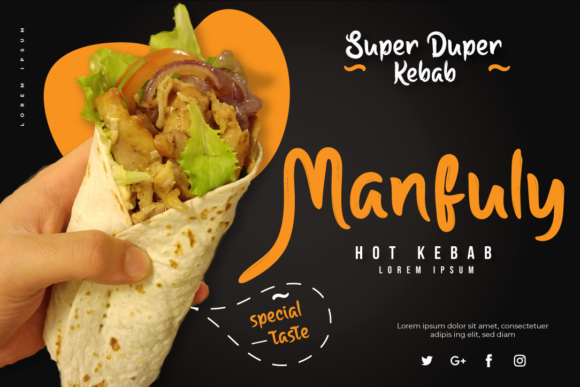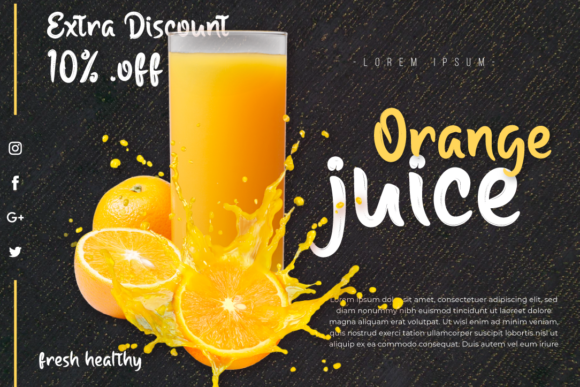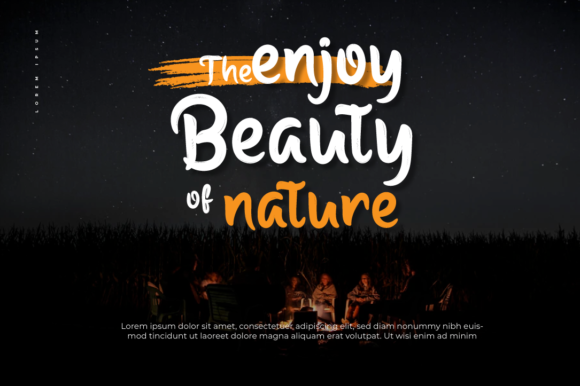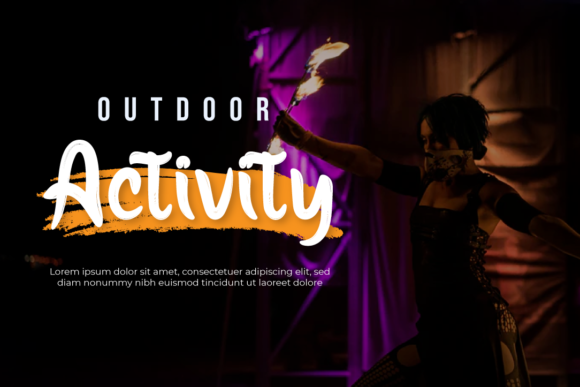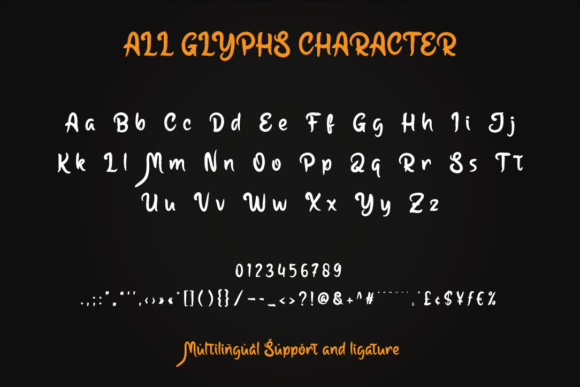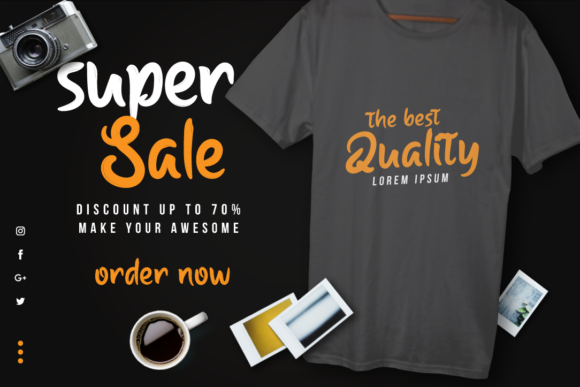
Introduction to Manful Font
Do you remember the moment when a particular font choice completely transformed your creative project? Maybe it was the perfect balance of elegance and playfulness that made your design stand out. For me, it was a handwritten font that gave my branding a unique and personal touch. And that’s exactly what the Manful Font offers – a brush handwritten font that can elevate your designs to the next level.
| 👤 Author | Productype |
As a designer, you’re always on the lookout for high-quality design resources that can help you create original and outstanding designs. The Manful Font is a valuable addition to your design arsenal, perfect for a wide variety of projects, from branding and advertising to posters and banners. And the best part? It’s available for a free download, so you can start experimenting with it right away.
With its transparent background and high-quality design, the Manful Font is a game-changer for any creative project. Whether you’re working on a packaging design, a podcast logo, or a quote, this font is sure to bring your ideas to life in a unique and captivating way.
Key Features of Manful Font
- High-quality design resource with a strong, masculine aesthetic suitable for creative projects.
- Features a transparent background, making it easy to layer over images and other design elements.
- Includes a range of weights and styles, from light to bold, allowing for versatile use in various design contexts.
- Designed with a focus on readability, ensuring that the font remains clear and legible even at small sizes.
Honest Review: Manful Font
I recently had the chance to try out the Manful Font, and I have to say it’s a unique addition to any design project. As a design resource, I appreciate its bold and modern feel, perfect for making a statement in a creative project. With its high-quality design and versatility, it’s a great choice for anyone looking to add a touch of sophistication to their work.
- ✨ Customizable and adaptable to various design needs
- ✨ Offers a wide range of font styles and weights
- ✨ Includes a transparent background option for added flexibility
One thing to note is that the font may not be suitable for all types of projects. For example, it may not be the best choice for projects requiring a more minimalist or subtle design approach.
- ⚠️ May not be suitable for minimalist or subtle design projects
Overall, I would recommend the Manful Font for designers looking to add a touch of boldness and sophistication to their work. As a free download, it’s definitely worth checking out, especially for those on a budget. With a little creativity, the Manful Font can be a great addition to any creative project.
Tips for Getting the Most Out of Manful Font
To get the most out of Manful Font, use it in combination with a transparent background to create a sleek and modern design. You can also experiment with different font sizes and colors to add visual interest to your project.
Manful Font is perfect for creating business cards, brochures, and other marketing materials. It’s also great for use in social media graphics, blog posts, and other online content.